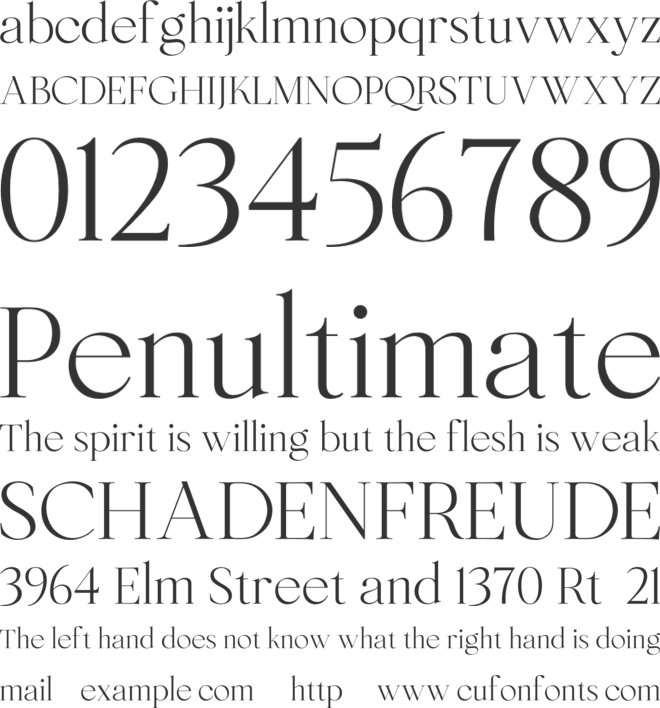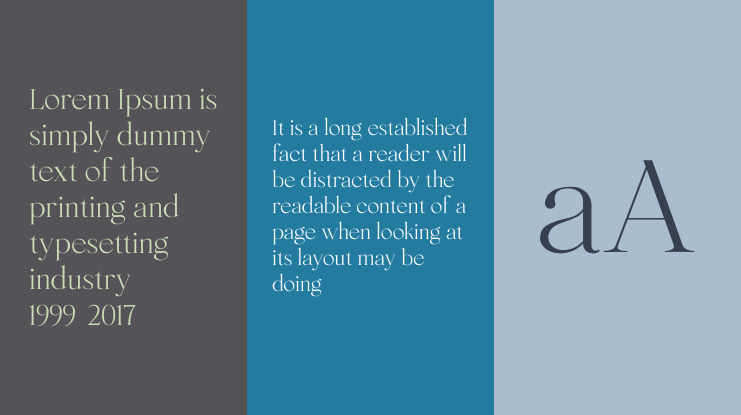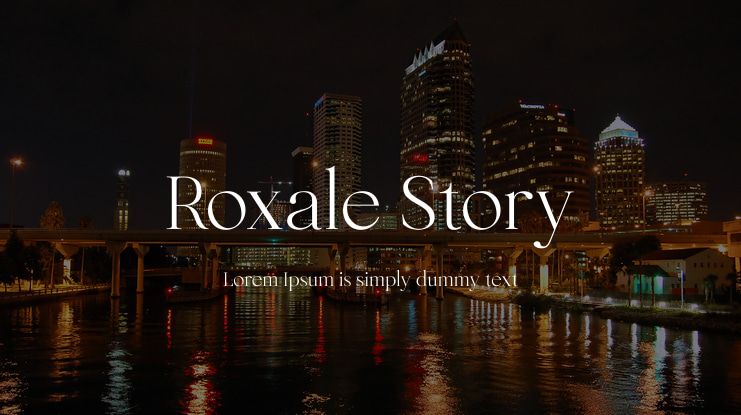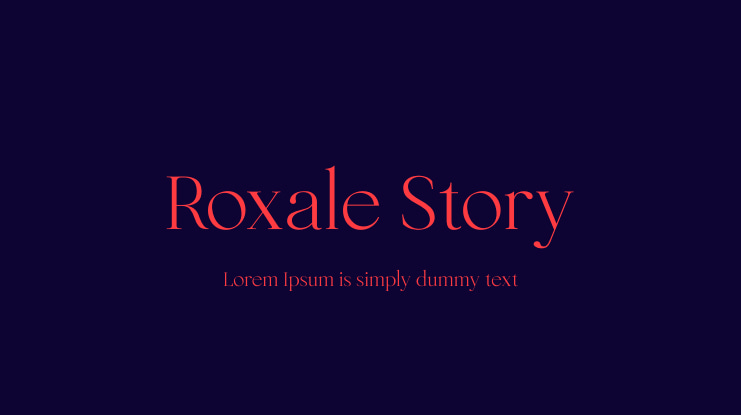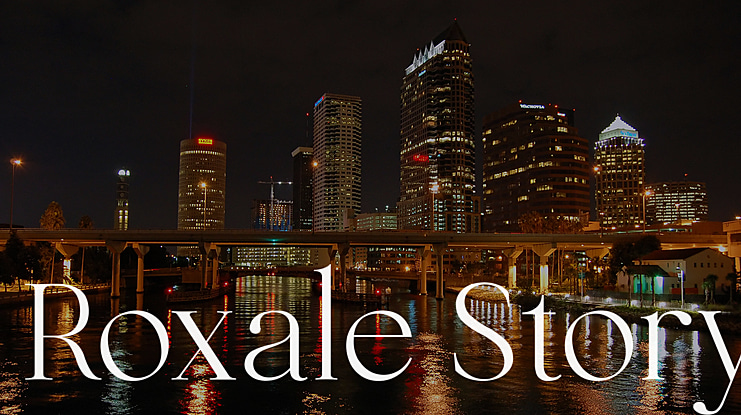
Roxale Story Font Family
Introducing - Roxale Story. A new fresh & modern serif with smooth curves. It comes with elegant style, classy, and contrasts, with features and consist of regular, italic and calligraphy italic.
Roxale Story is perfect for luxury logo and branding, classy editorial design, woman magazine, cosmetic brand, fashion promotional, art gallery branding, museum, historical of architectural, boutique branding, stationery design, blog design, modern advertising design, card invitation, art quote, home decor, book/cover title, special events and any more.